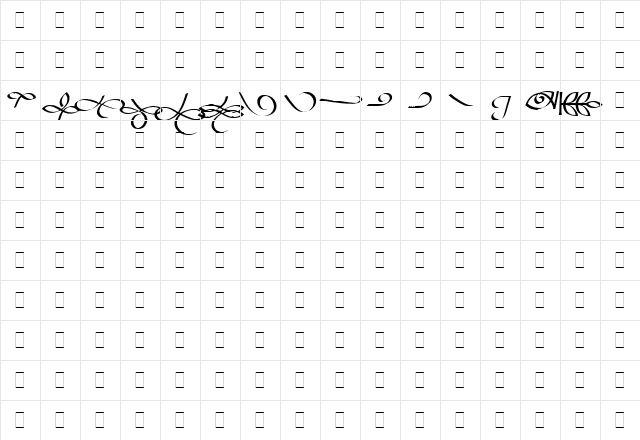
Bible Script Flourishes LET Plain
Design Context for Bible Script Flourishes LET Typeface
Bible Script Flourishes LET flows with the natural rhythm of handwritten lettering, making it ideal for designs that call for warmth and personal expression.
Font Pairing: Combine Bible Script Flourishes LET with a simple geometric sans for maximum contrast — the tension between flowing curves and clean structure is a classic typographic pairing.
Pro Tip: Use Bible Script Flourishes LET for short runs of text — names, titles, or taglines. Extended body copy in script faces tires the eye quickly.